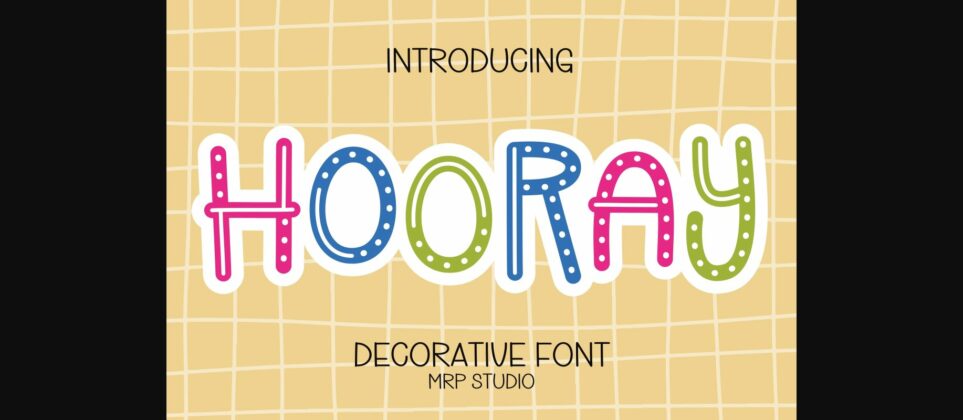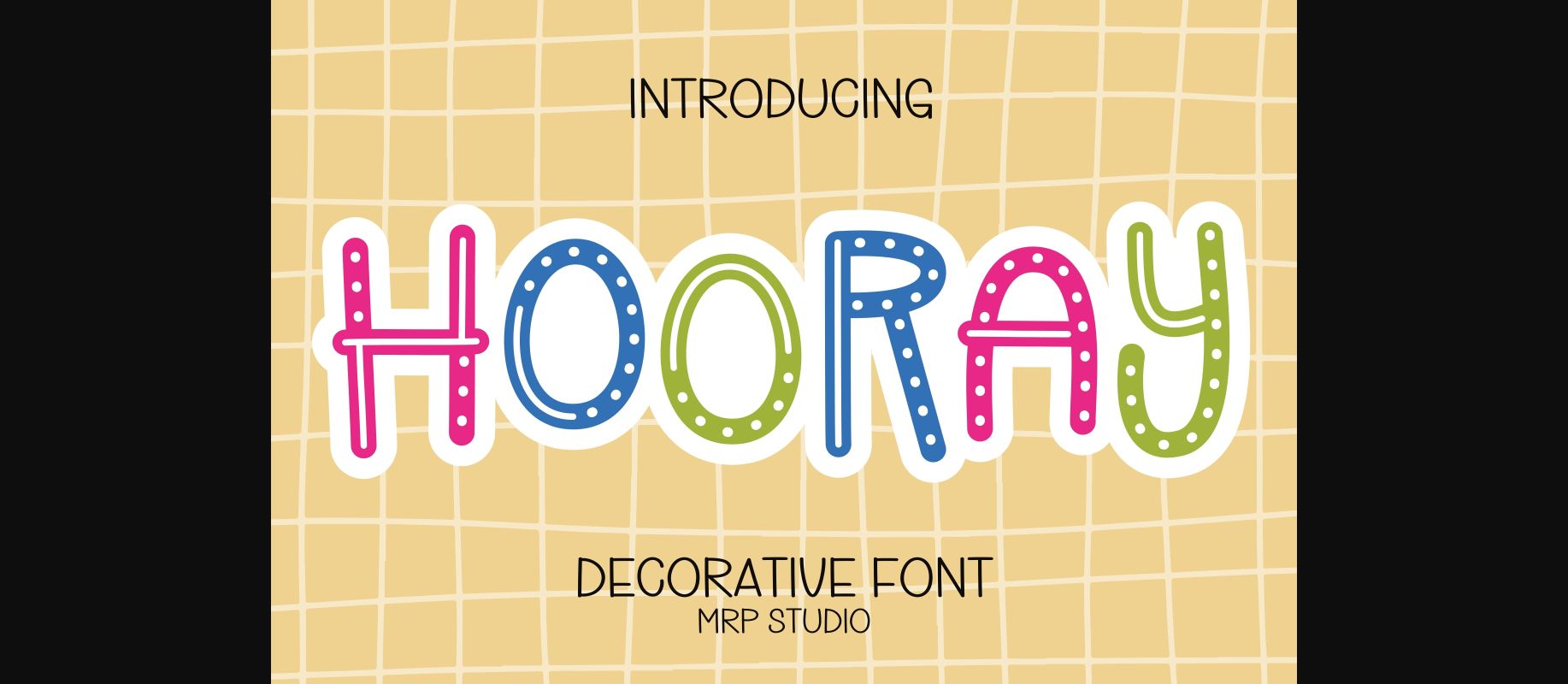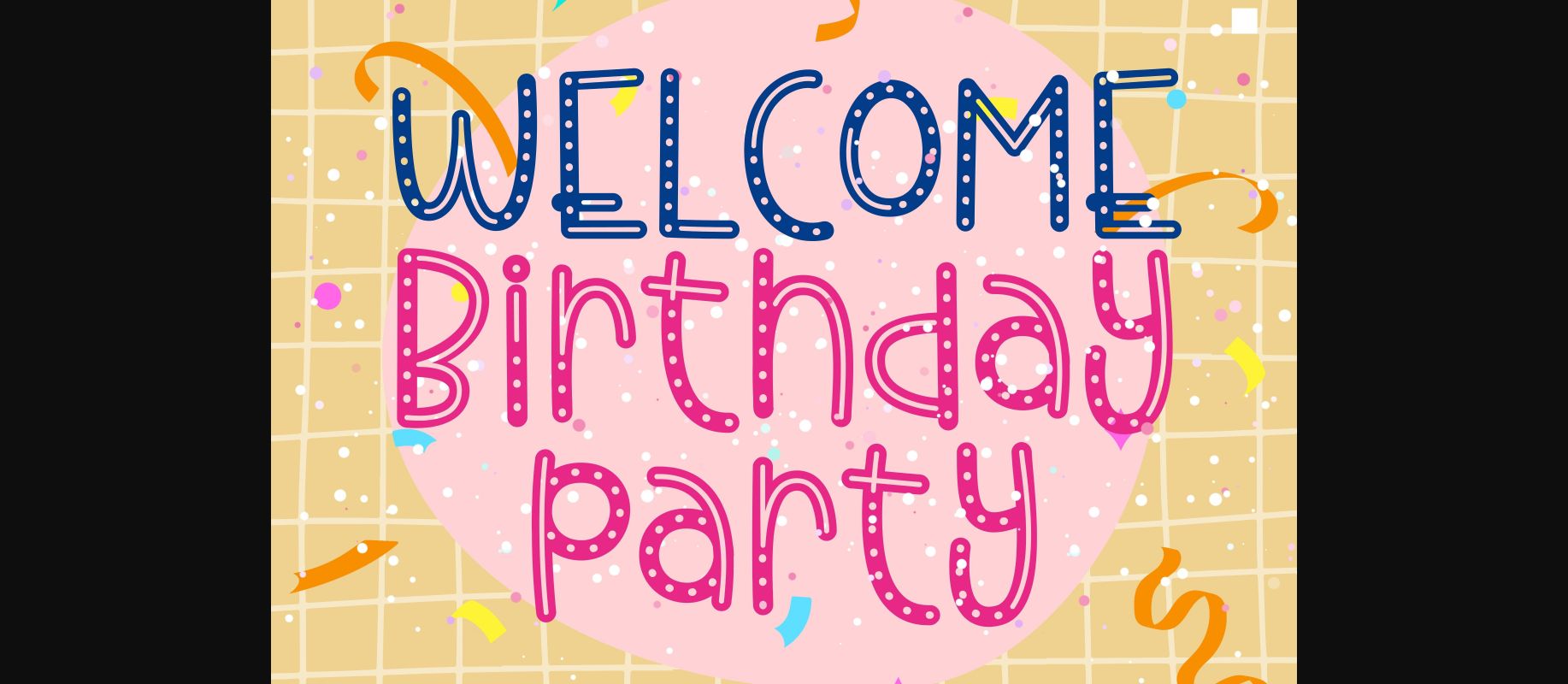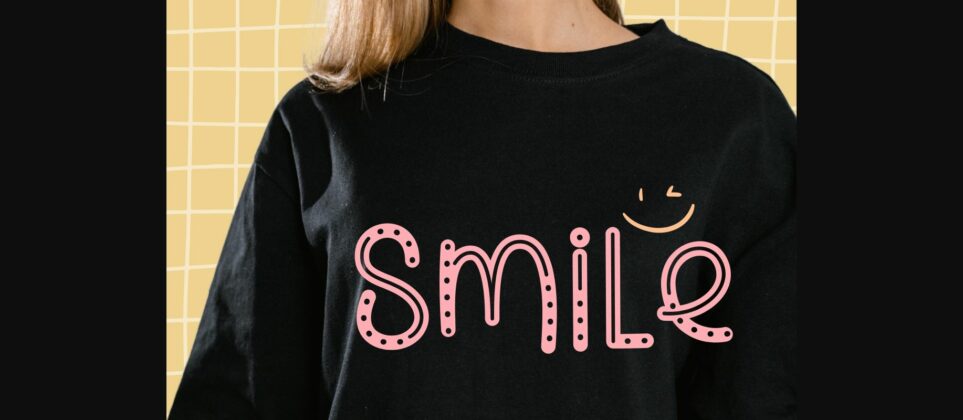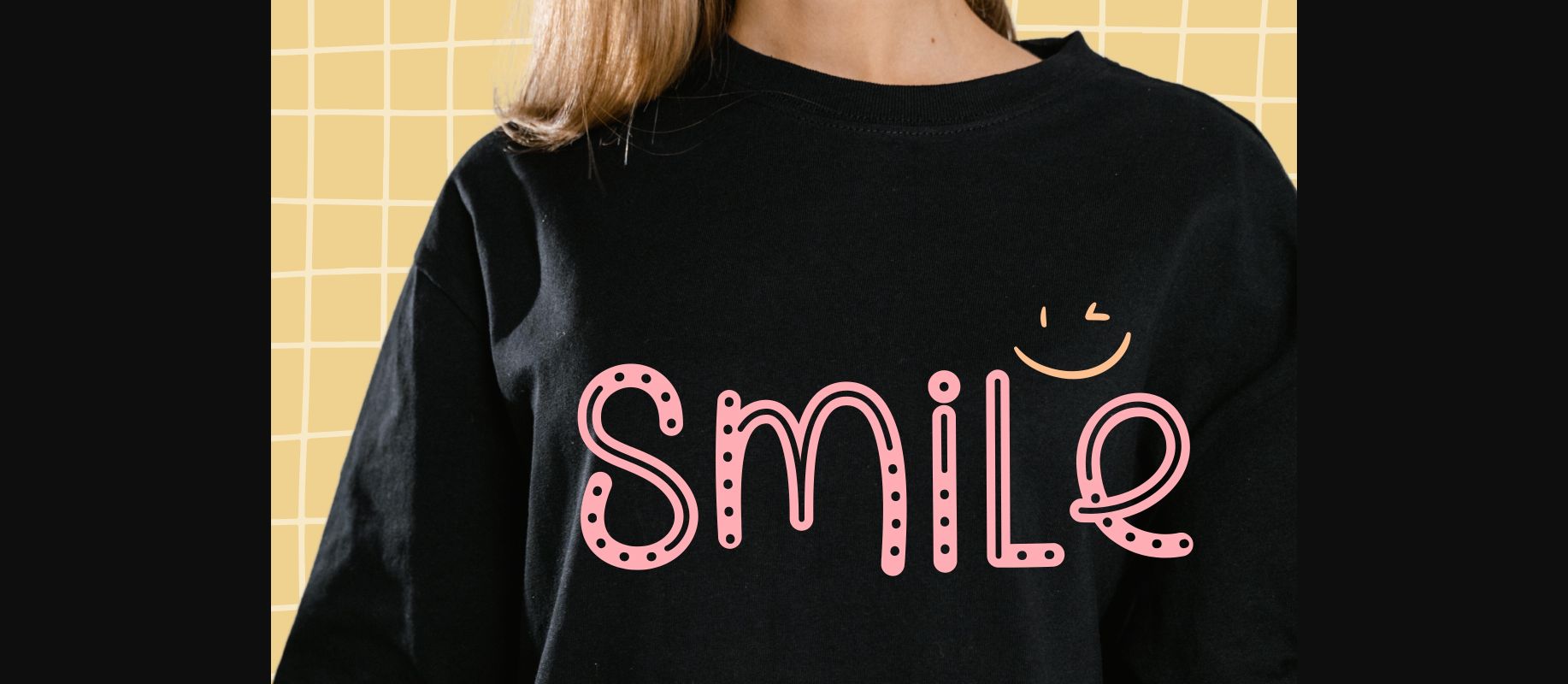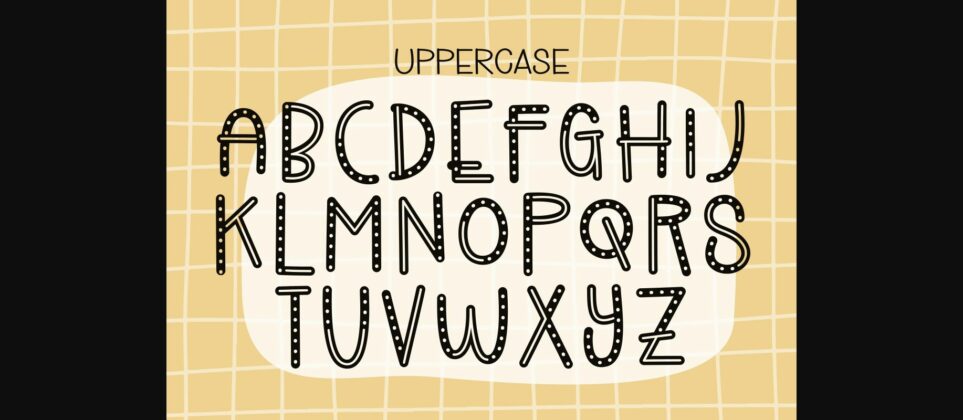
About Hooray Font
Hooray is designed in a playful and adorable decorative font style. It would be awesome to your colorful child-related projects, back-to-school, party decorations, invitations, posters, blogs, clothing, greeting cards, social media posts or anything that needs a friendly touch.